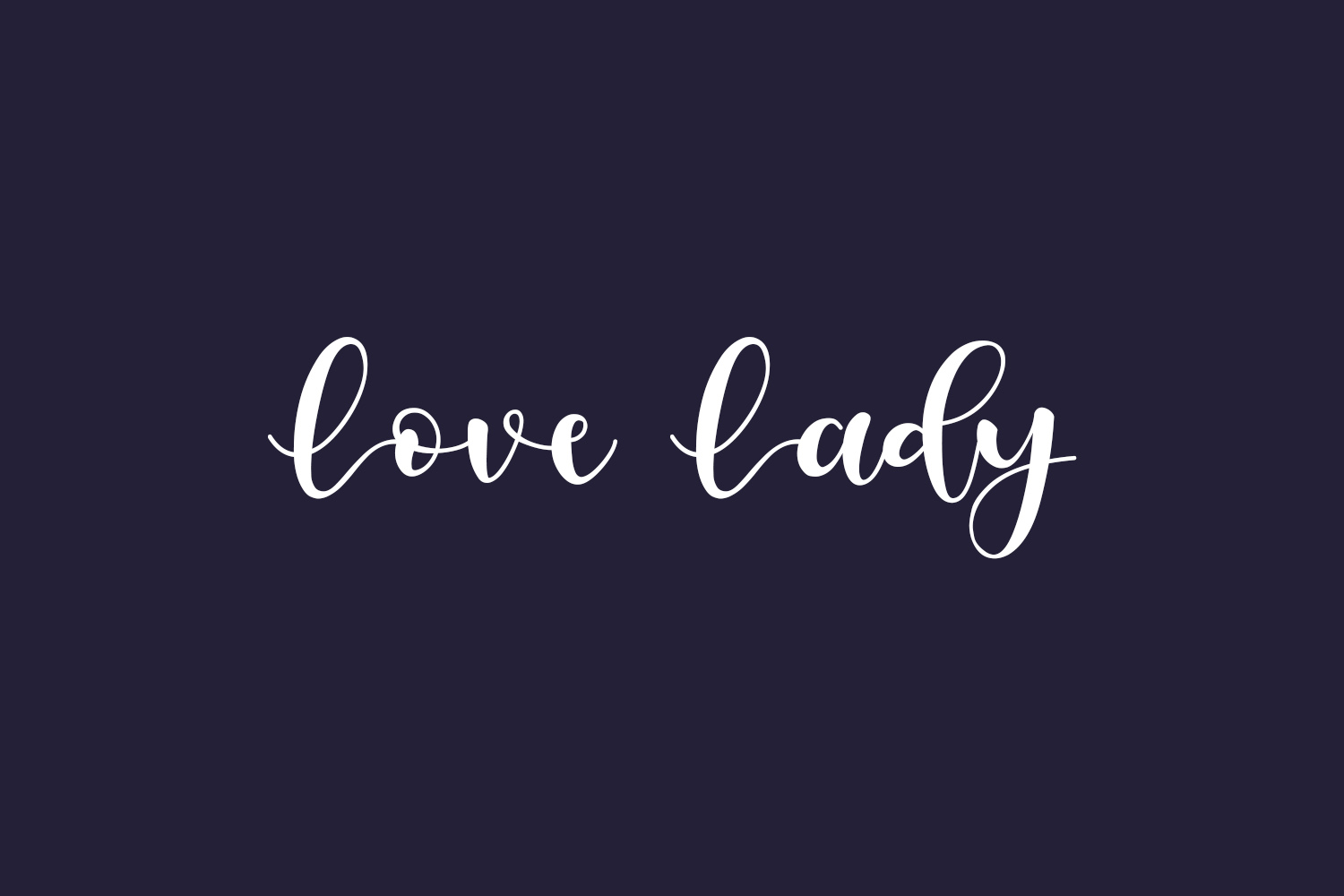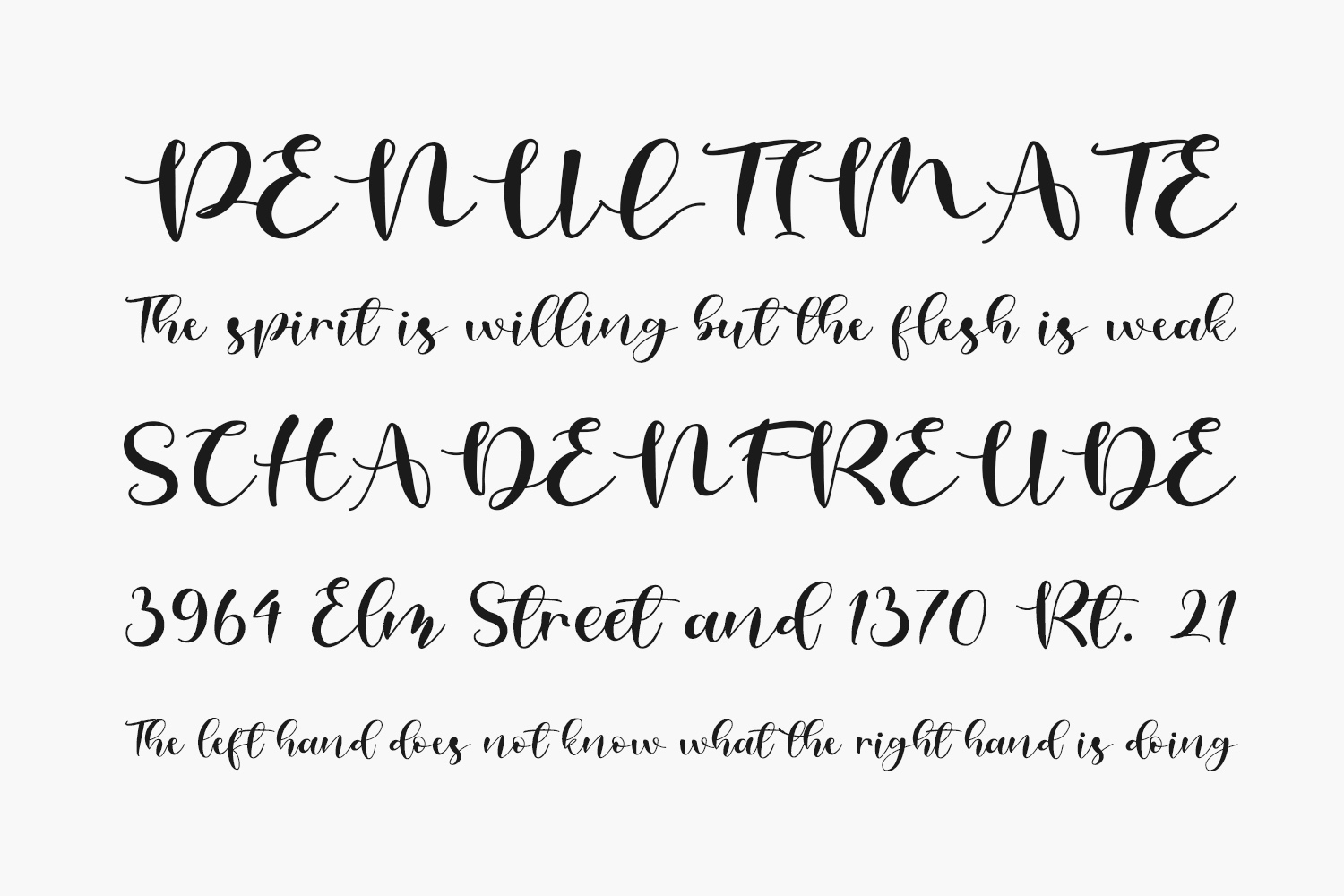
Love Lady Free Font is a sweet and romantic handwritten font. It will add a luxury spark to any design project that you wish to create. Love Lady Free Font was designed by Creaditive Design and is free for personal use only. Please purchase the full version for commercial use.